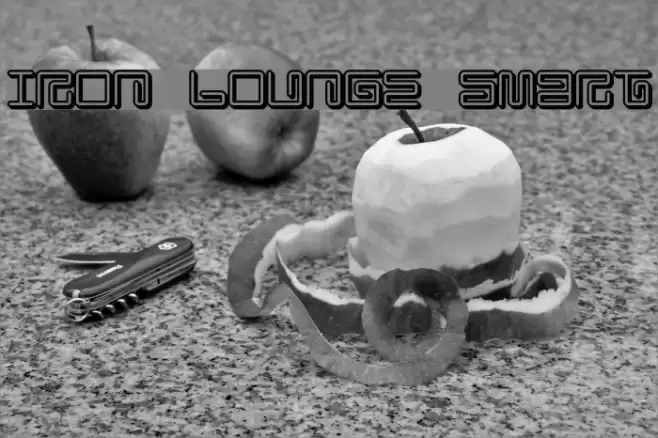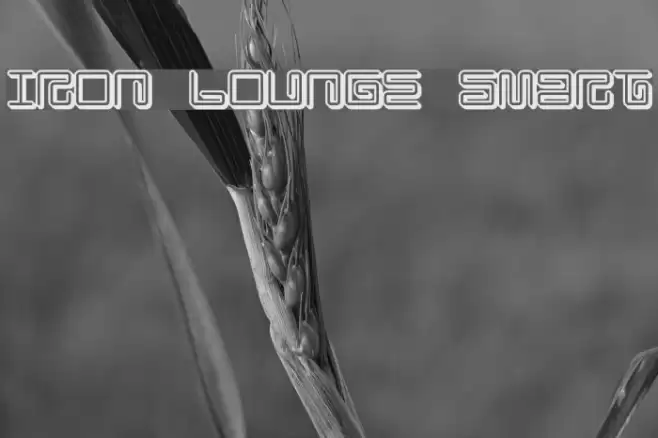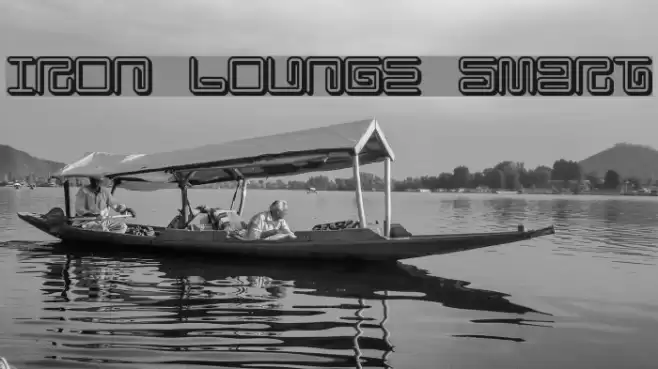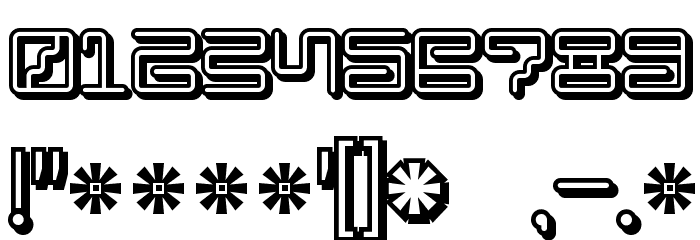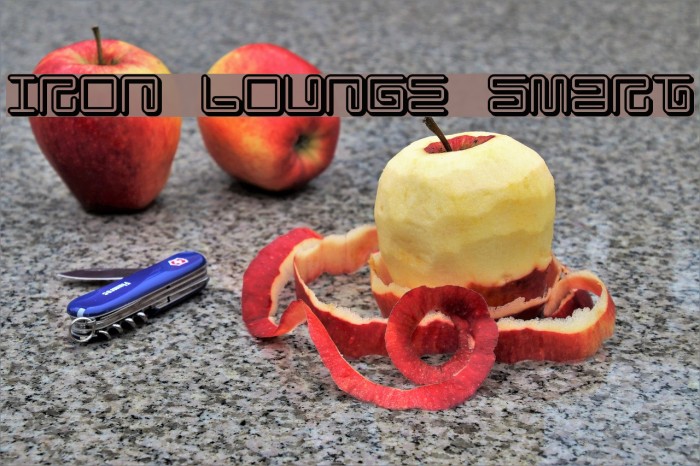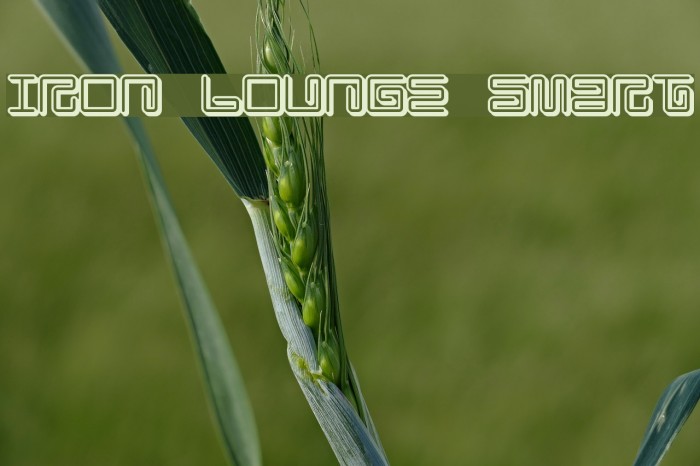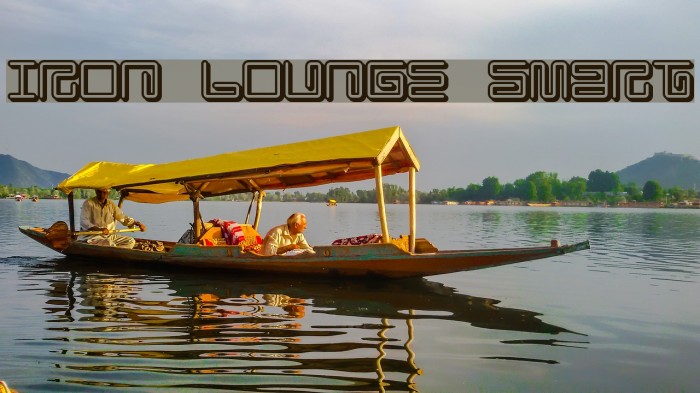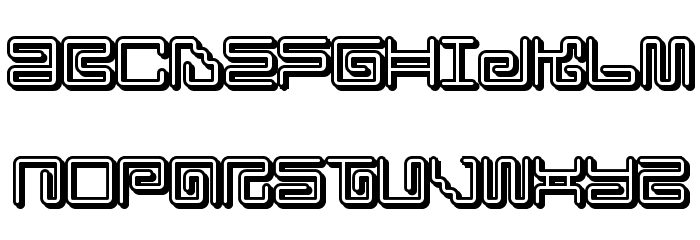
Iron Lounge Smart Font
Iron Lounge Smart Description
This font features a futuristic and geometric design, characterized by bold, interconnected lines that form each character. The letters and numbers are enclosed within a double-lined structure, giving them a three-dimensional appearance. The style is highly decorative, with a unique blend of angular and rounded elements that create a visually striking effect. The font maintains a consistent width across all characters, contributing to its uniform and cohesive look. Special characters are designed with the same bold outline, ensuring they match seamlessly with the alphanumeric characters. This font is ideal for projects that require a modern, tech-inspired aesthetic.
A futuristic, geometric font with bold, interconnected lines and a three-dimensional appearance from Futuristic fonts.
- Proposed Projects: Ideal for tech branding, sci-fi themed designs, video game titles, and futuristic posters.